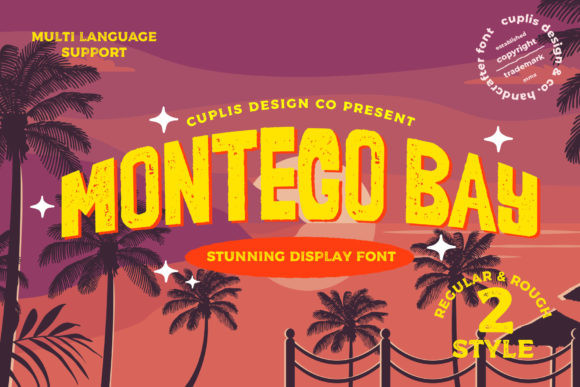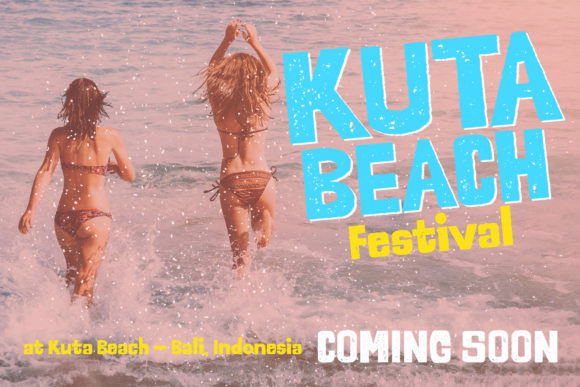
Montego Bay Font
Montego Bay is a bold and chunky lettered display font. Add this font to your creative ideas and notice how it will make them stand out!